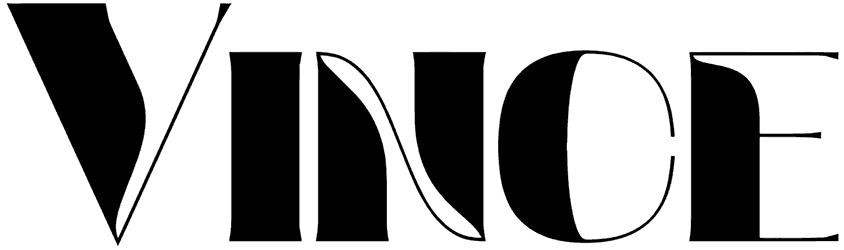
Vince Font
In logos, posters, and advertising, Vince, a fancy retro font with a great blend of sharp edges and thick letters, can make any design stand out.